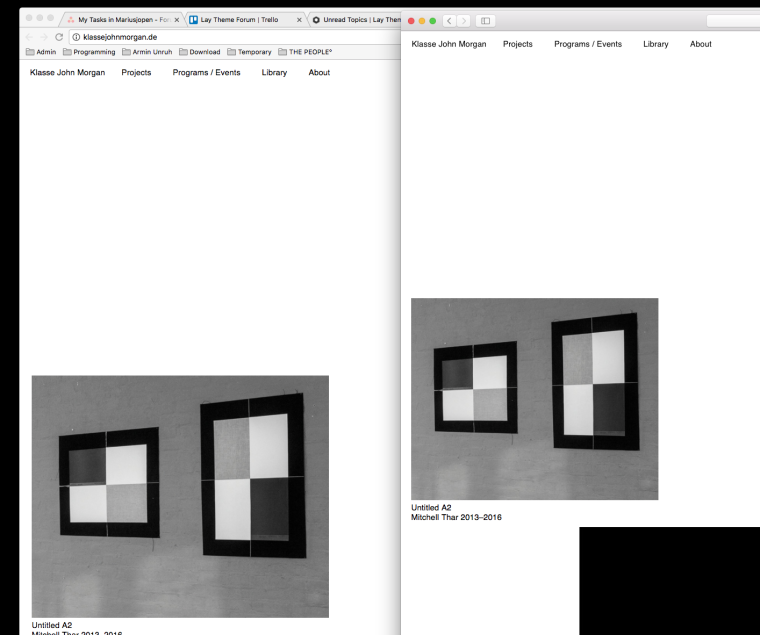
Font in Menu and Body looks different …
Hey … anyone ever had this problem?
Simply using Helvetica (15px size) as a default style on my homepage. On menu and body text I applied the same style .. nevertheless they look different in safari (Works for Chrome and Firefox)
I cannot see a difference.
Can you post a screenshot?
site title and menu looks perfect ... but body text looks compared to those much stronger ... actually now I realize that it also happens on my own website … if you look to it in safari the site title looks different then the text next to it: check